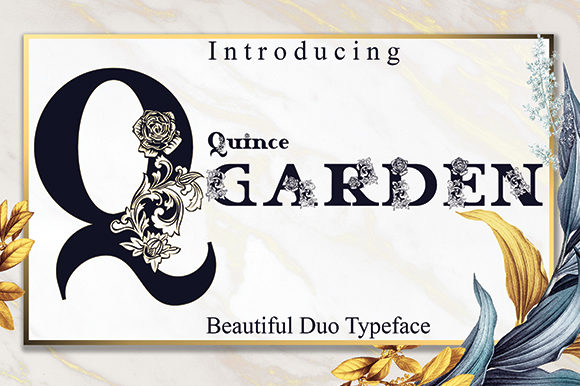
Quince Garden Font: Where Beauty and Elegance Blossom in Harmony
Step into a world of grace and sophistication with Quince Garden Font, a display font that captures the essence of refined beauty. Inspired by the delicate blooms of quince flowers in France and the timeless elegance of roses, Quince Garden elevates your designs with a touch of undeniable charm.
With its two captivating styles, Regular and Outline, Quince Garden offers a versatile range of possibilities for your creative projects. The Regular style exudes a classic charm, its smooth curves and intricate details adding a touch of timeless elegance to your designs. The Outline style, with its striking contrast and delicate strokes, brings a modern edge to your creations, adding a touch of contemporary flair.
Explore the boundless potential of Quince Garden Font, a treasure trove of design possibilities. Whether you're crafting elegant logos, creating eye-catching branding materials, or designing sophisticated invitations and cards, Quince Garden becomes your trusted companion, transforming your visions into stunning realities.
Unleash your creativity and let Quince Garden Font guide you on a journey of beauty and grace. Dive into a world where elegance reigns supreme, where every letter dances with charm, and where your designs blossom into masterpieces.